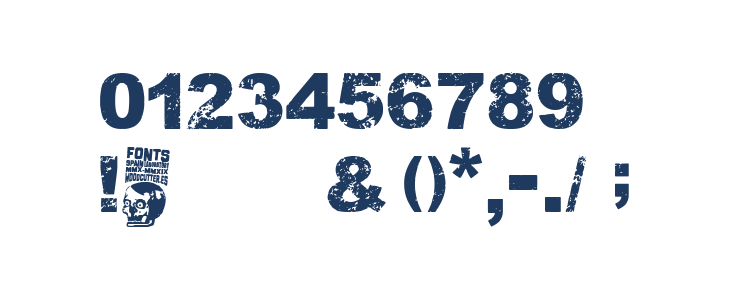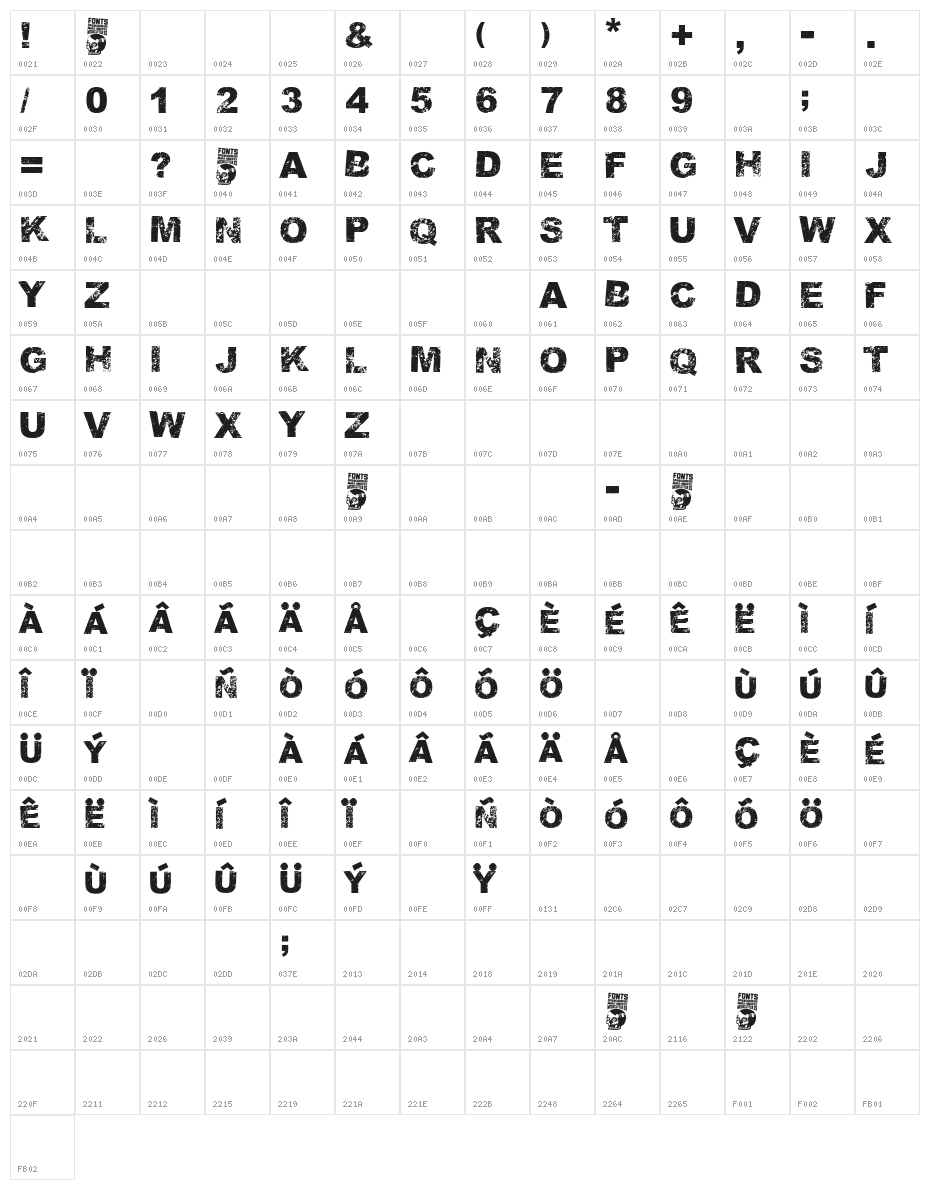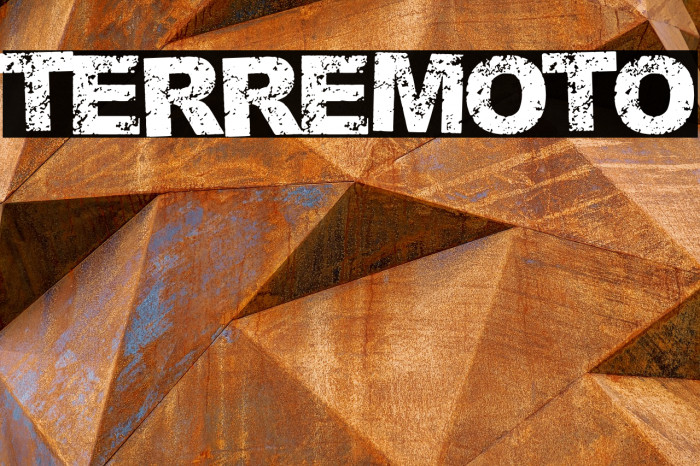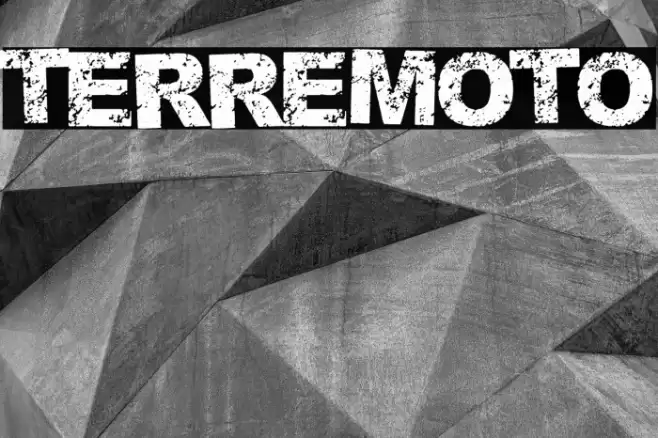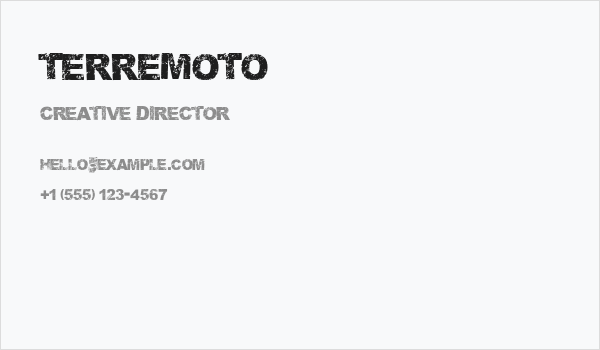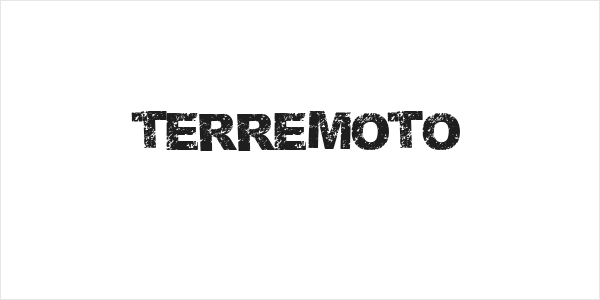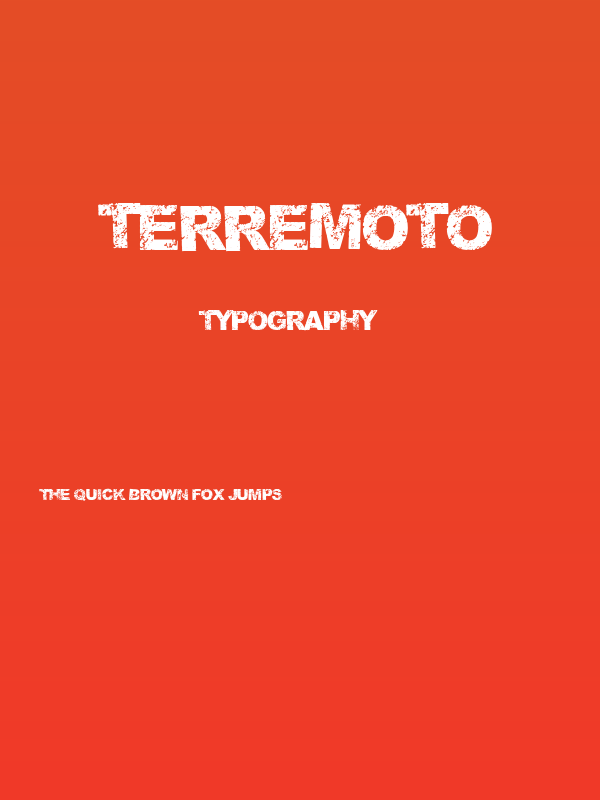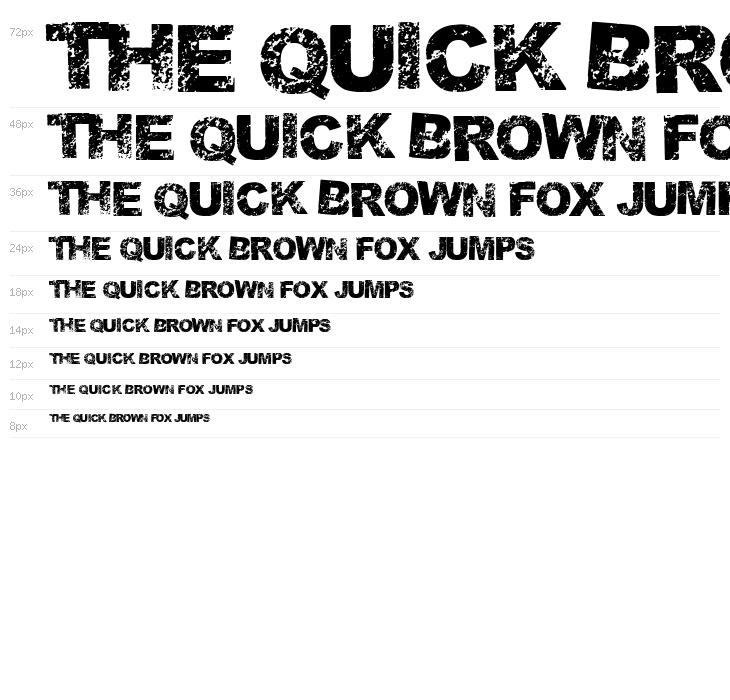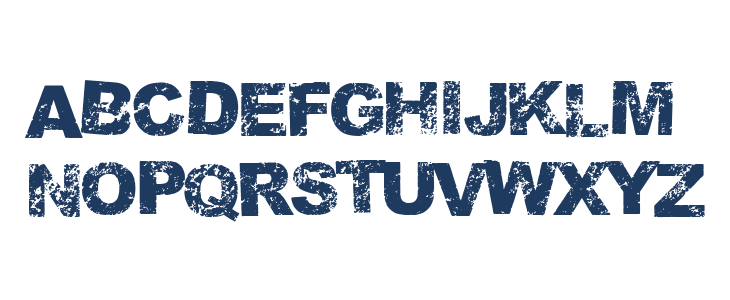
Terremoto Font
Terremoto Description
This font features a bold, distressed style with a rough, textured appearance that gives it a gritty, urban feel. The uppercase letters are prominent and impactful, making them ideal for attention-grabbing designs. The numbers and special characters maintain the same rugged aesthetic, ensuring consistency across all elements. The font's uneven edges and worn-out look suggest a vintage or industrial theme, perfect for projects that require a bold statement. Its unique style makes it suitable for posters, album covers, or any design that needs a touch of raw energy.
| Overall Style | Vintage, Industrial |
| Proposed Projects | Ideal for posters, album covers, urban-themed designs, and bold branding projects. |